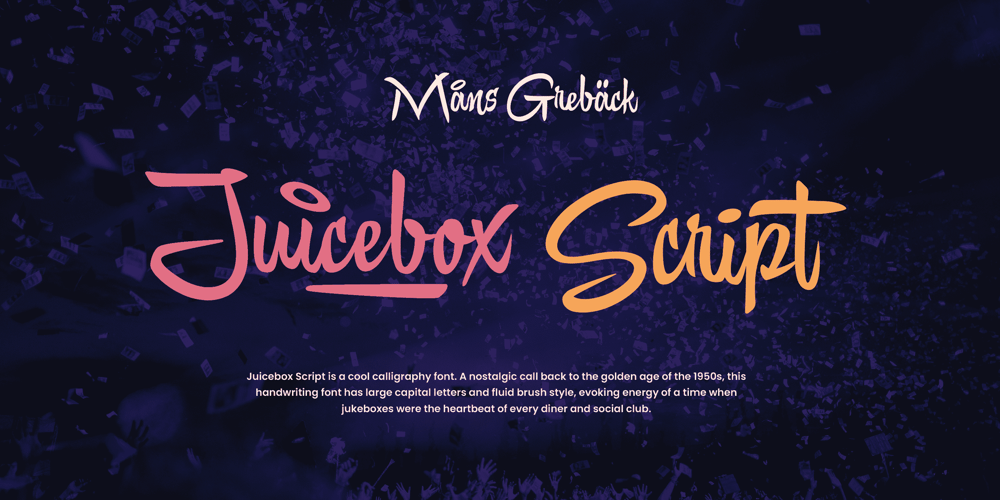
Juicebox Script Font Family was designed by Måns Grebäck and published by Mans Greback. Juicebox Script contains 4 styles and family package options. Juicebox Script is a cool calligraphy font. A nostalgic call back to the golden age of the 1950s, this handwriting font has large capital letters and fluid brush style, evoking energy of a time when jukeboxes were the heartbeat of every diner and social club. Juicebox Script’s retro look infused with the essence of hand-painted signage and logotypes brings a piece of the past into modern designs. Each stroke is crafted to convey motion and emotion, making it an ideal choice for projects that require a touch of nostalgia coupled with the authenticity of brush handwriting. The font is built with advanced OpenType functionality and guaranteed top-notch quality, containing stylistic and contextual alternates, ligatures and more automatic and manual features; all to give you full control and customizability. It has extensive lingual support, covering all Latin-based languages, from North Europa to South Africa, from America to South-East Asia. It contains all characters and symbols you’ll ever need, including all punctuation and numbers. Designed by Mans Greback, Juicebox Script combines the art of calligraphy with the vibrant culture of the mid-20th century.